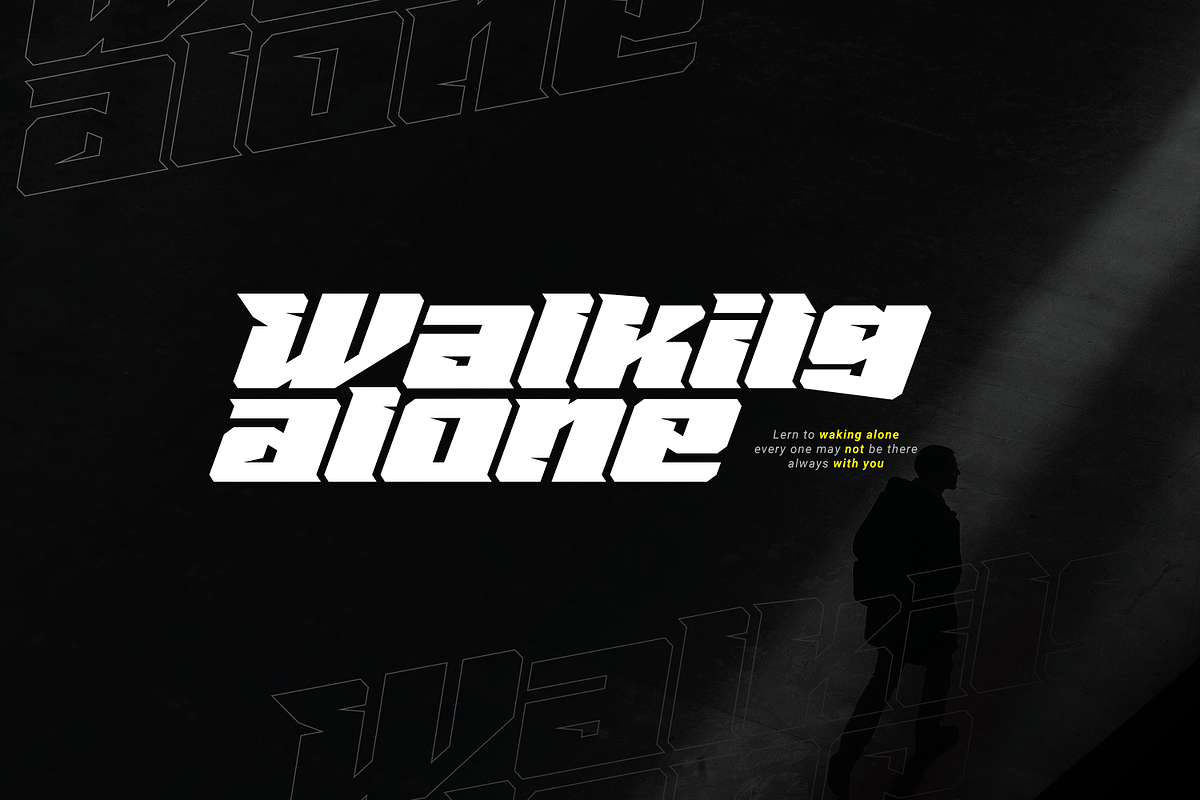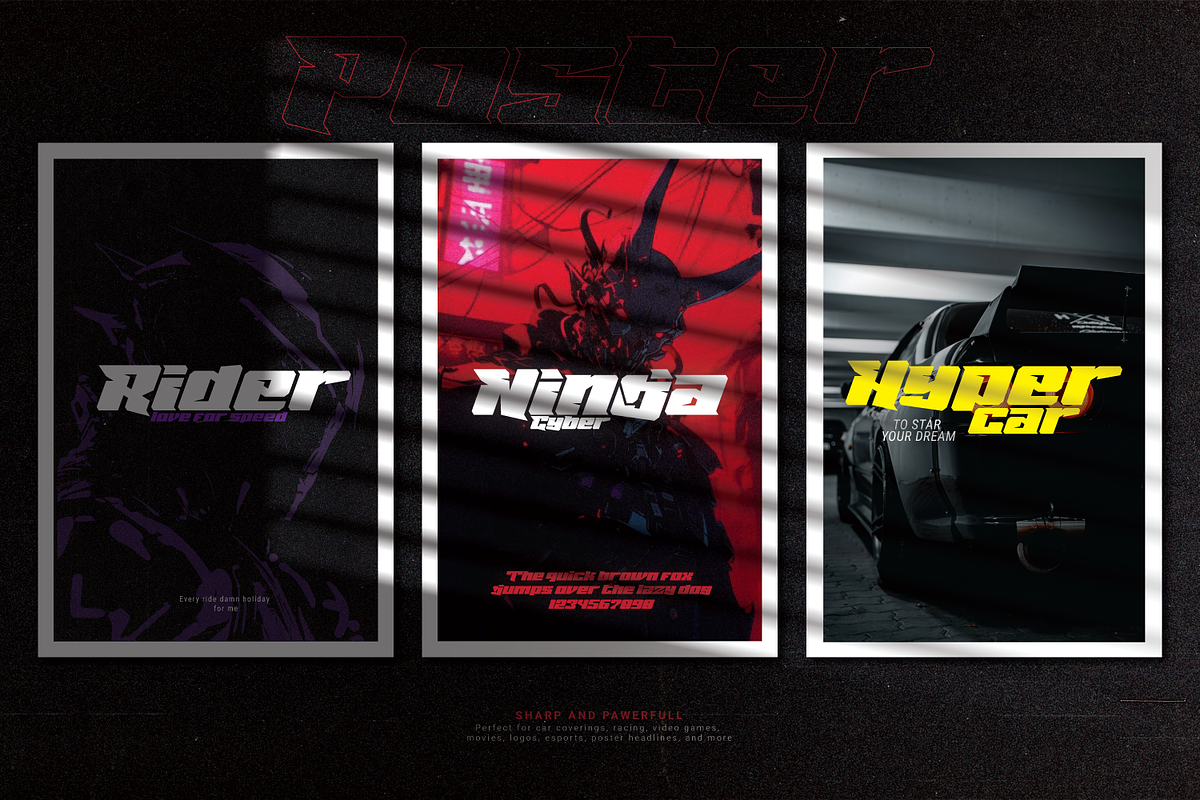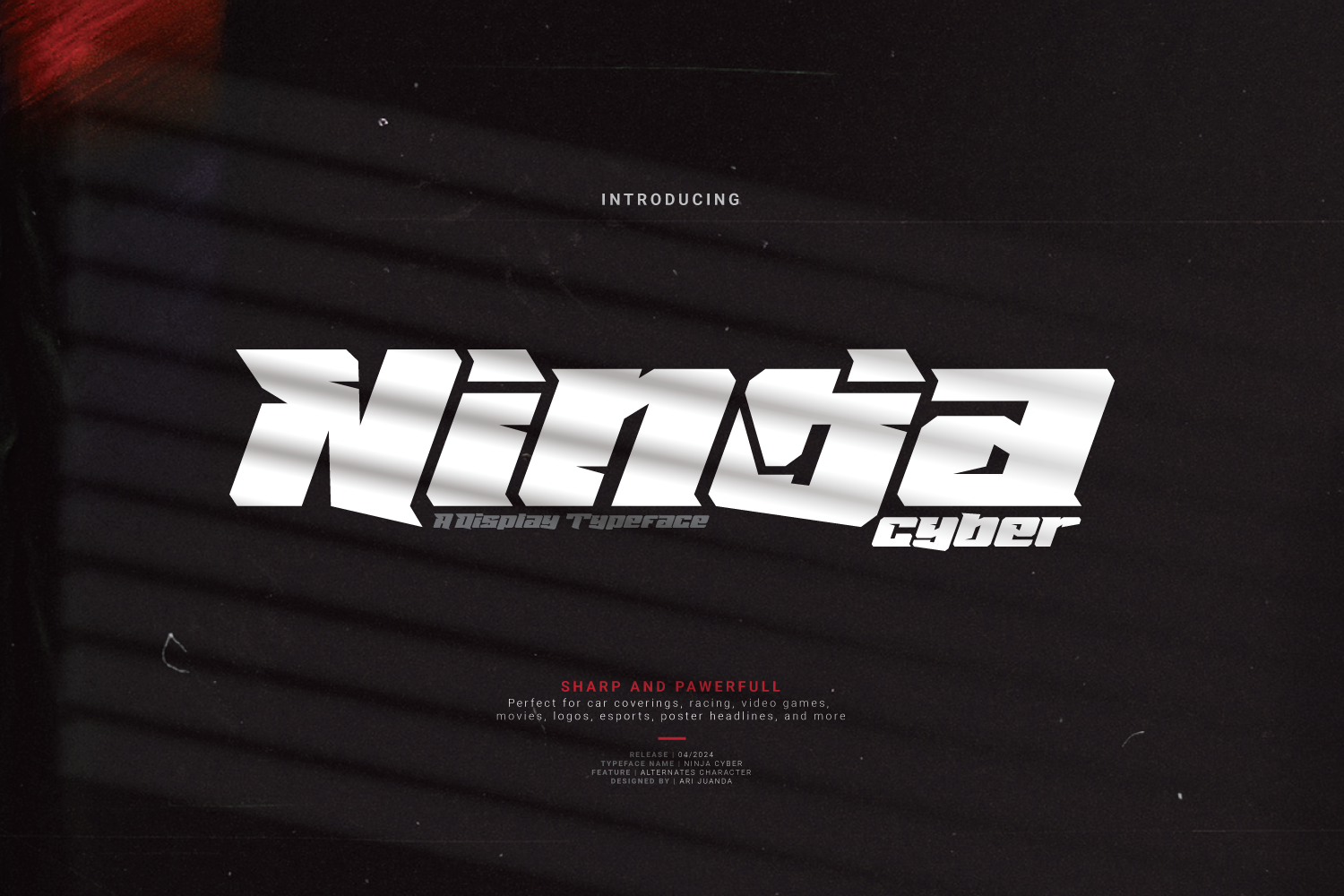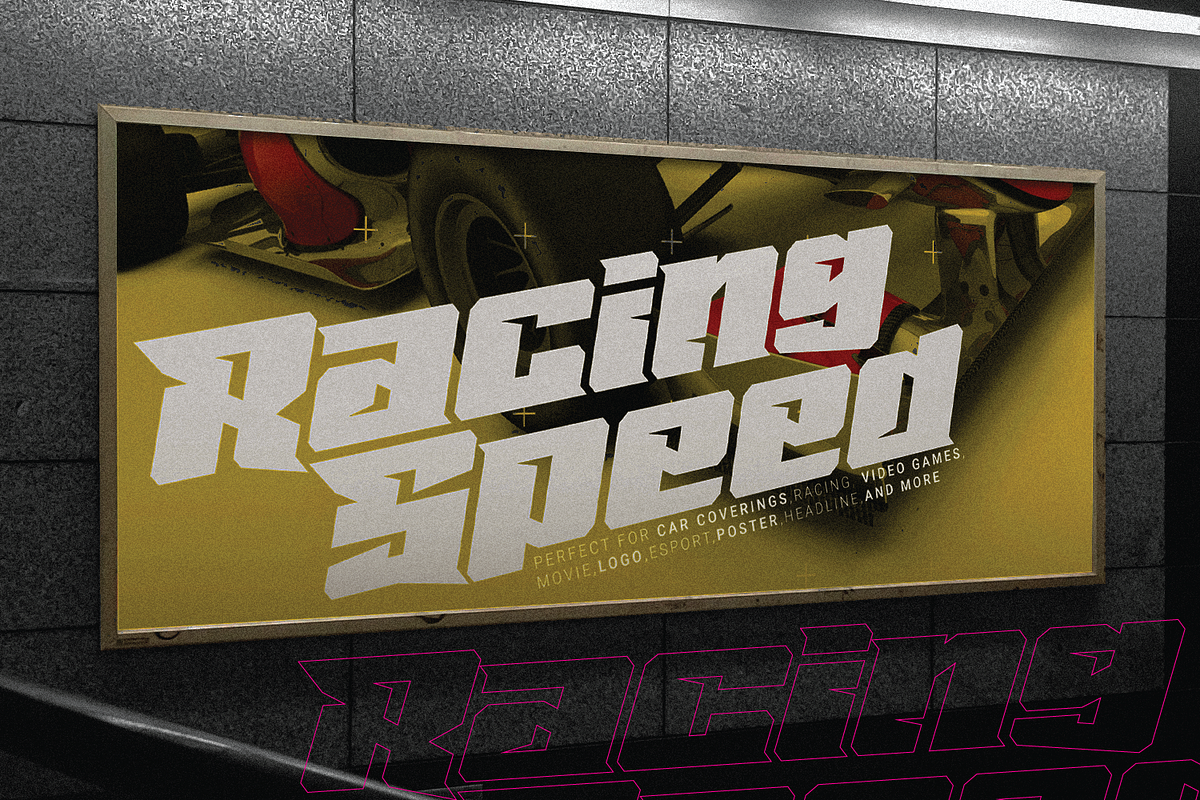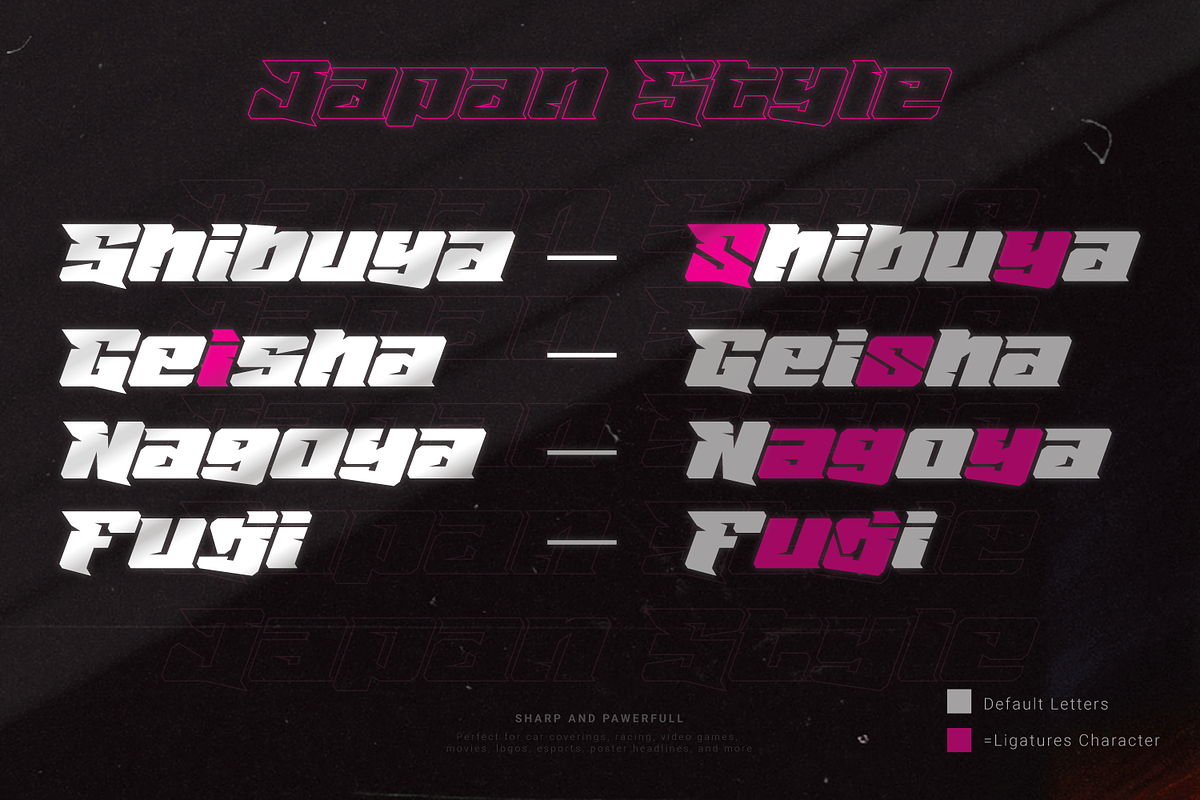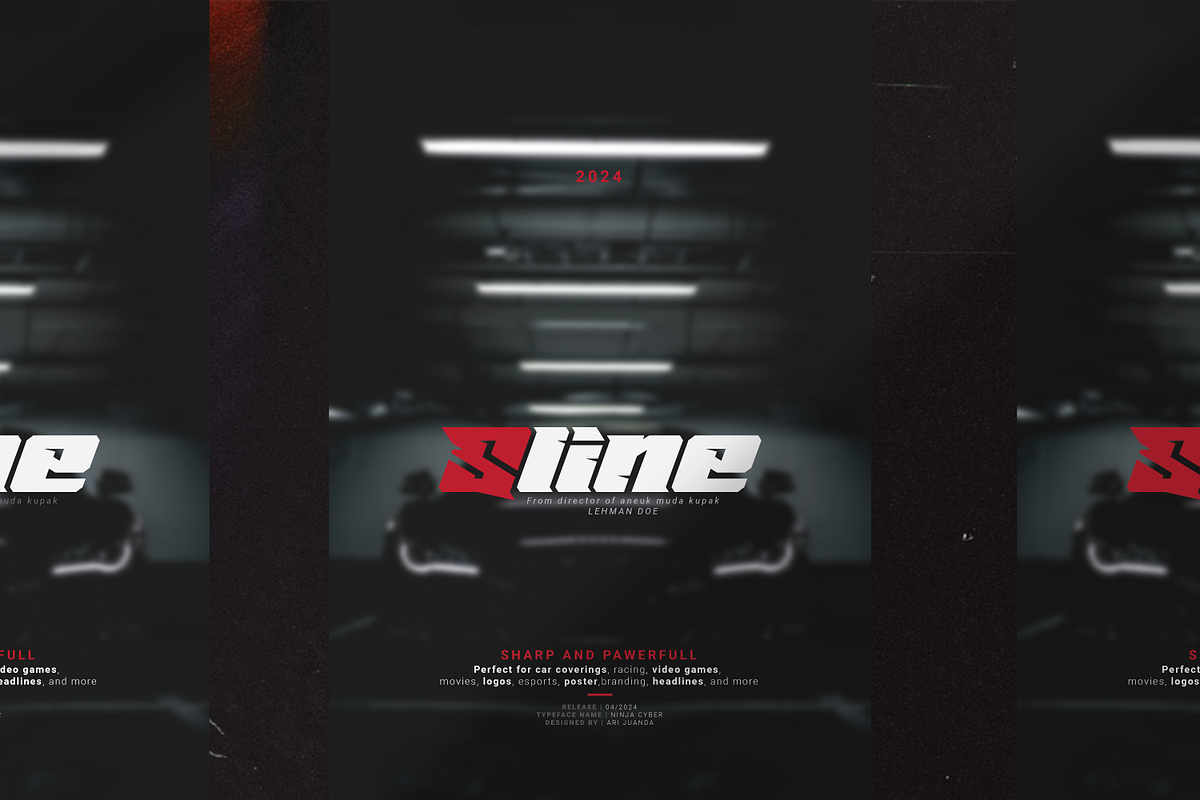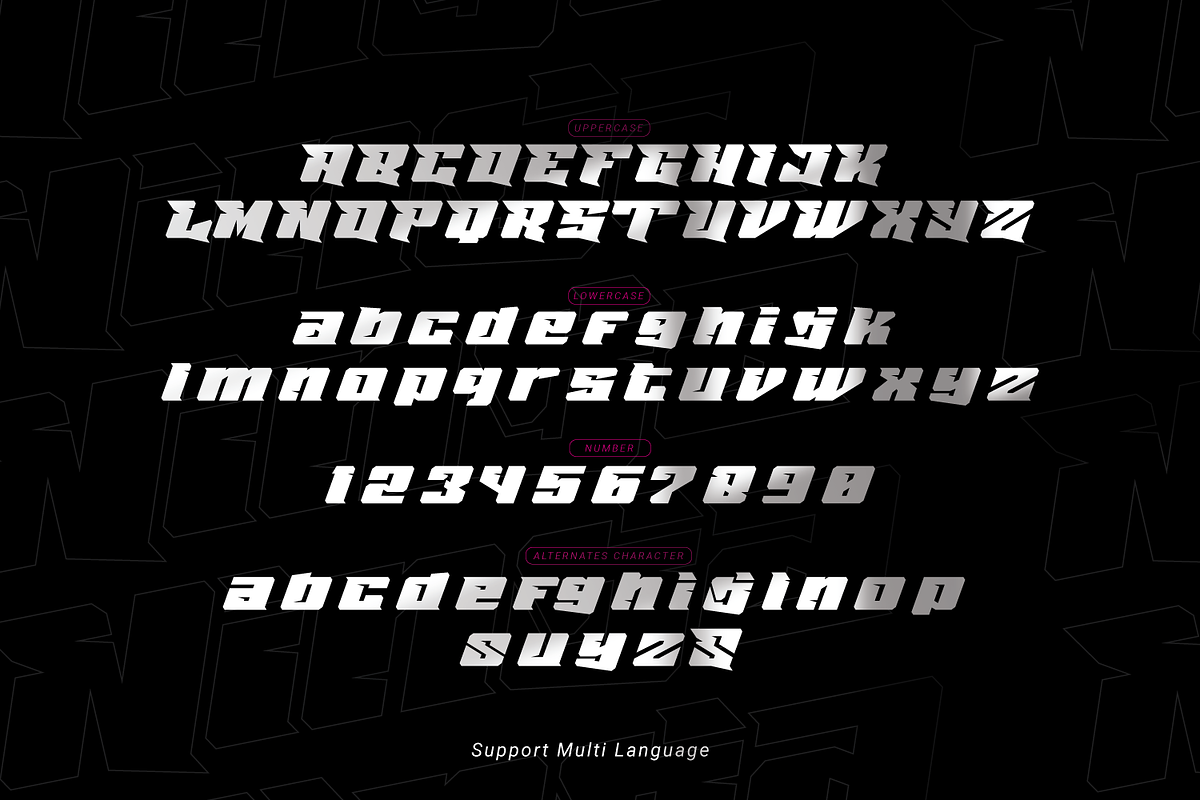
Ninja Cyber - A Display Typeface
Ninja Cyber is a cool combination of powerful, sporty, elegant, and futuristic. One of kind font that versatile to apply in various design styles.
The letterforms are slanted, sharp, and given slight incisions that quicken your energy and make the design more confident. Ninja Cyber is suitable for posters, branding, logos, key chains, stickers, t-shirts, automotive, and much more!
To provide unlimited designs!, Cyber Ninja Font is equipped with several alternative letters for writing combinations that make your designs extraordinary